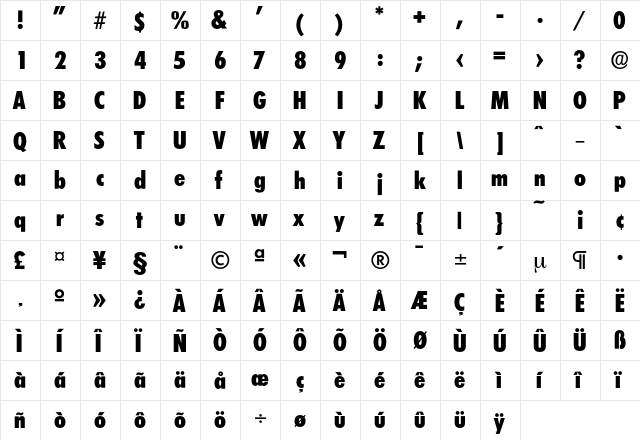
Limerick-ExtraBoldCond Regular
Design Context for Limerick-ExtraBoldCond Typeface
Limerick-ExtraBoldCond takes a measured approach to typography — its balanced proportions and neutral character make it a reliable workhorse for both digital and print work. Its bold stroke weight gives it real presence on the page. Its narrow stance lets it pack a punch even in space-constrained designs.